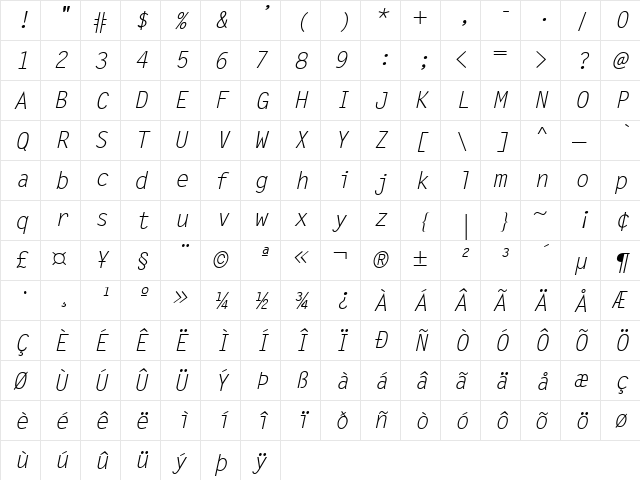
GE Monograph Fixed Width Italic
Design Context for GE Monograph Fixed Width Typeface
GE Monograph Fixed Width uses fixed-width spacing throughout, giving it the structured, systematic character associated with coding environments and technical documentation. The dynamic lean of this cut emphasises speed and emphasis in any layout.
A natural fit for code editors, technical documentation, developer-focused branding, and terminal-inspired UI.
Pro Tip: Pair GE Monograph Fixed Width with a proportional sans for UI contexts where code-style labels and regular body copy need to coexist.